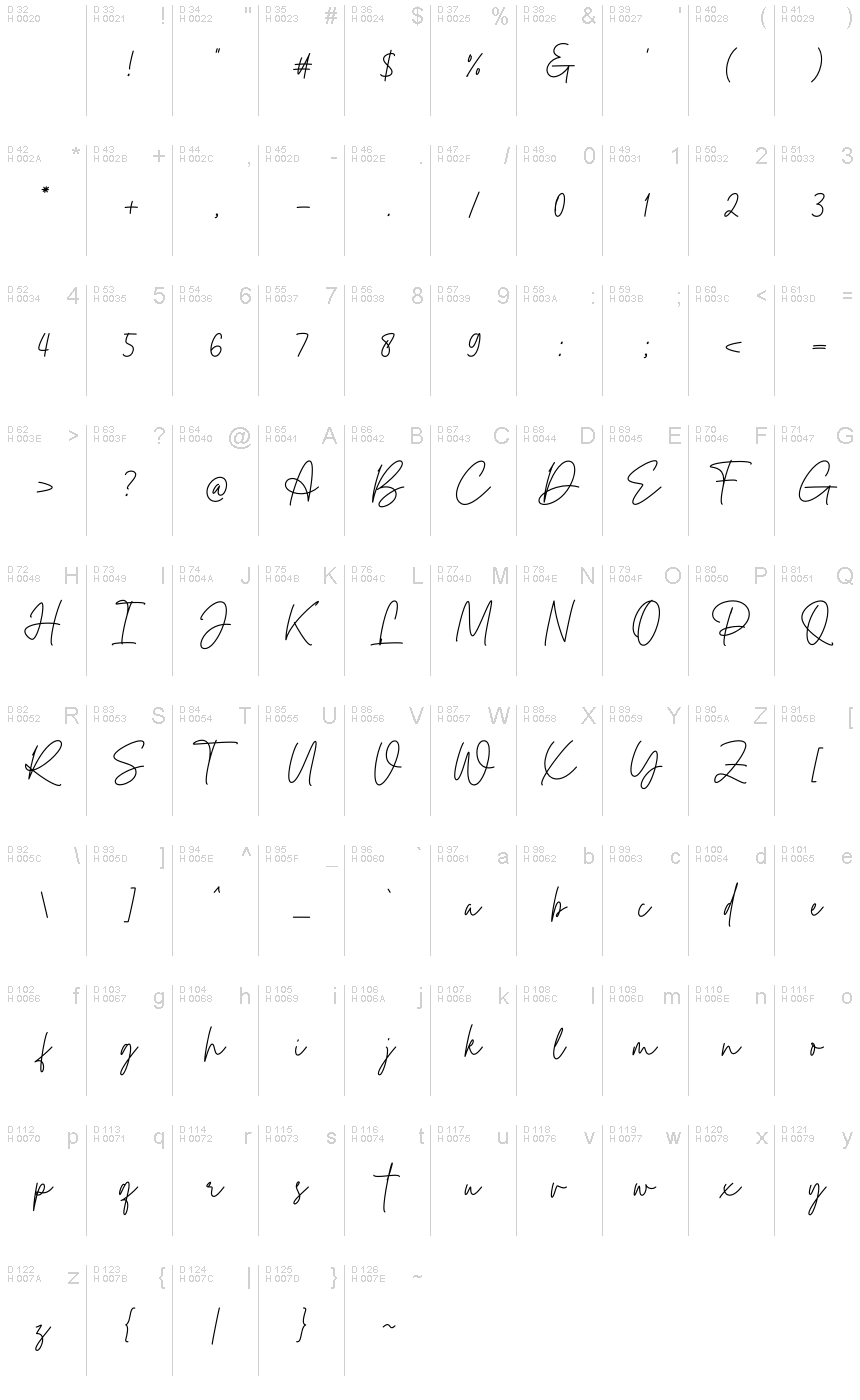
Pointone
Pointone font, crafted by Lemonthe, captivates with its elegant handwritten and signature style. This light font exudes a delicate charm, making it ideal for projects seeking a personal, sophisticated touch. The fluid strokes and graceful curves create an airy, effortless feel that enhances its aesthetic appeal.
Perfect for invitations, branding, and personal signatures, Pointone's uniqueness lies in its ability to convey warmth and personality. Designers looking to download a free font that stands out will find Pointone to be an excellent choice for adding character and elegance to their work. Its distinctive style ensures versatility across various design contexts while maintaining an exclusive appeal.